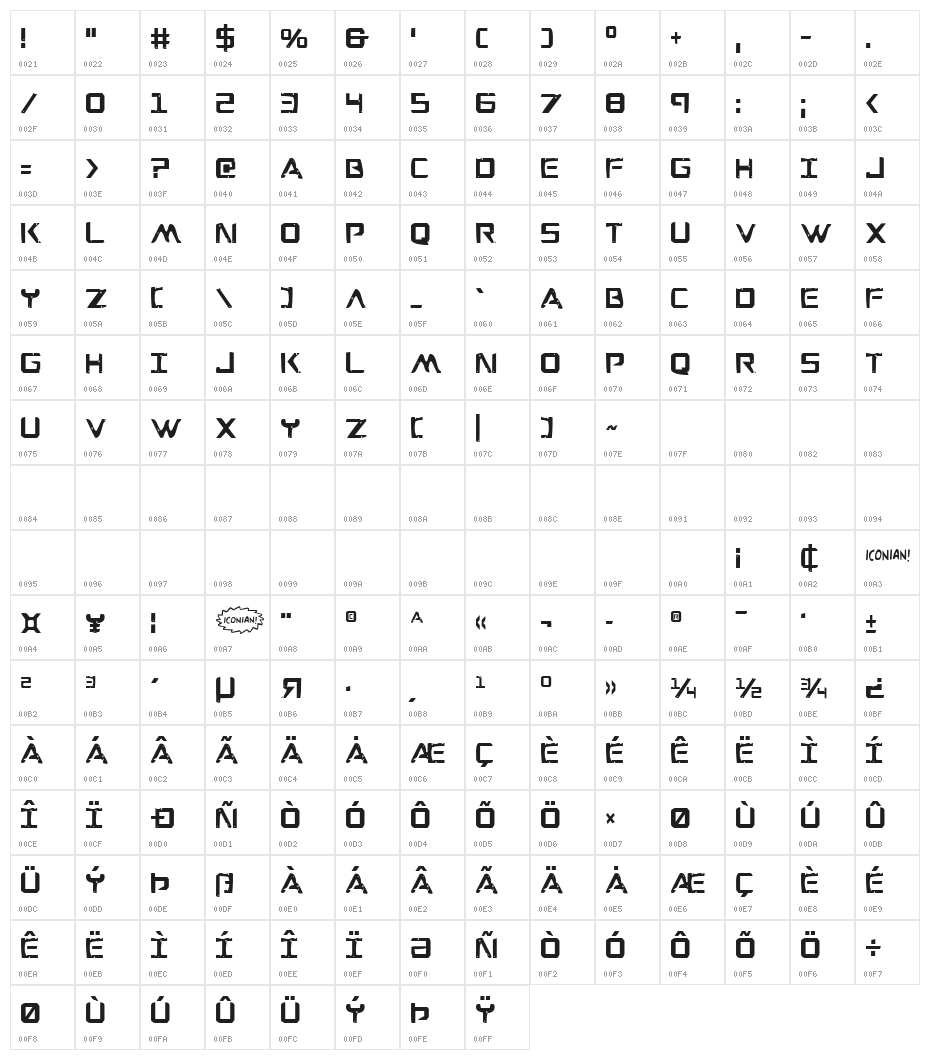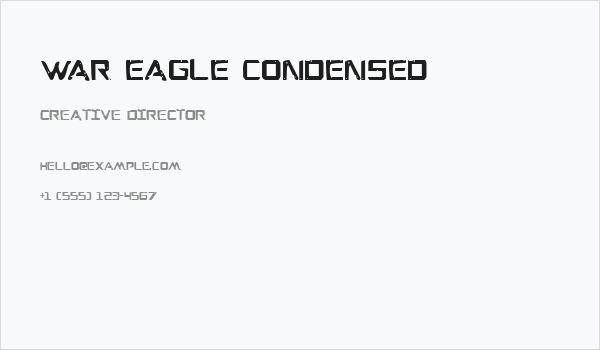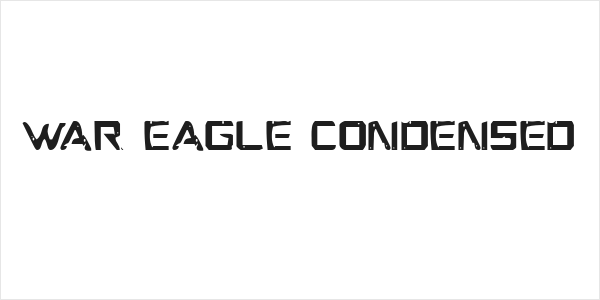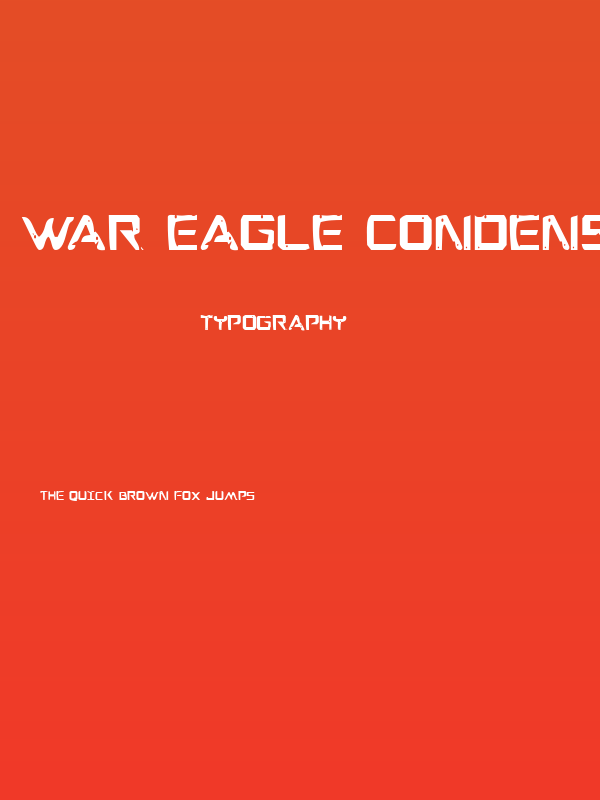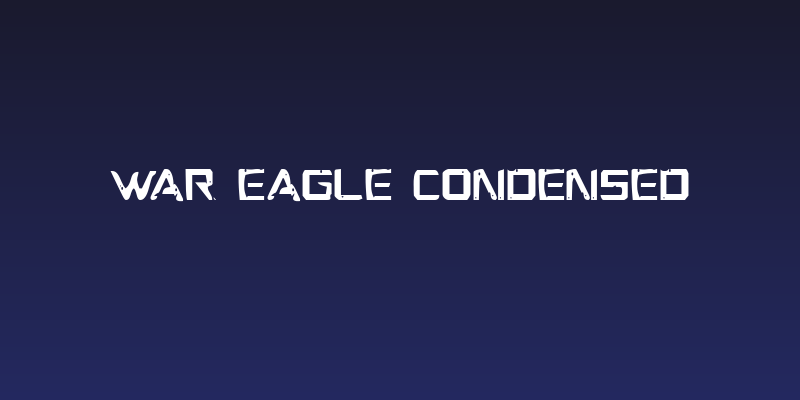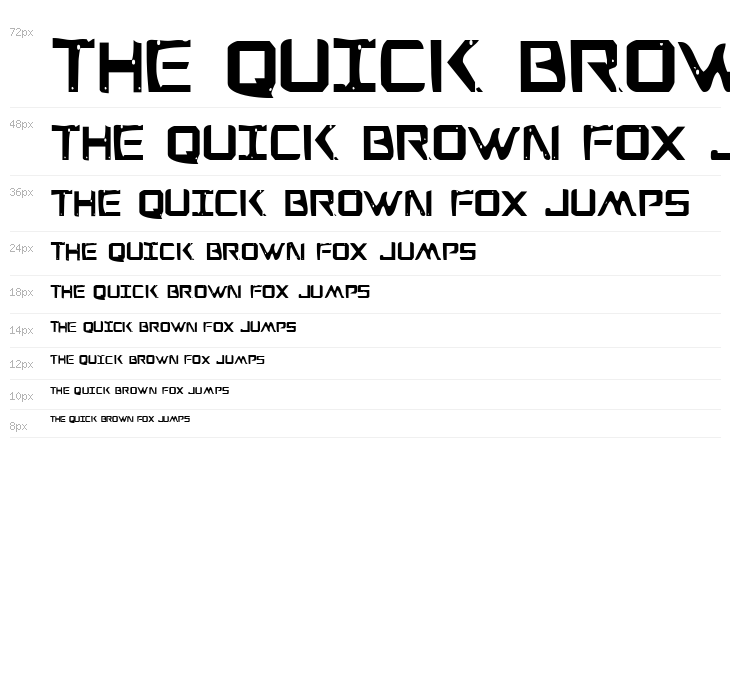
War Eagle Condensed Font
War Eagle Condensed Description
This font features a bold and condensed style with a distinctly modern and industrial aesthetic. The characters are designed with sharp angles and geometric forms, giving it a strong and assertive presence. The uppercase letters are uniform in height, while the lowercase letters maintain a similar structure, ensuring consistency across text. The numerals and special characters follow the same design principles, making them easily recognizable and cohesive with the overall style. The font's unique cut-out details add a touch of ruggedness, making it suitable for projects that require a bold statement.